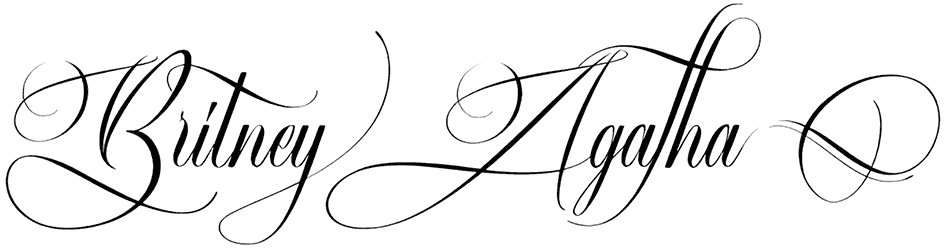
Britney Agatha Font
We are bringing you another funeral font today! Britney Agatha font is adorned with a minimal continuous style and thin lines on all of its letters. It will give a classic and romantic vibe to your texts.
You can use it for romantic and fantasy books and movie titles, channel banners, personal blogs, and event flyers. The characters are designed in a thin letter style and slightly curvier sides. Britney Agatha doesn’t have any numerals or punctuation.